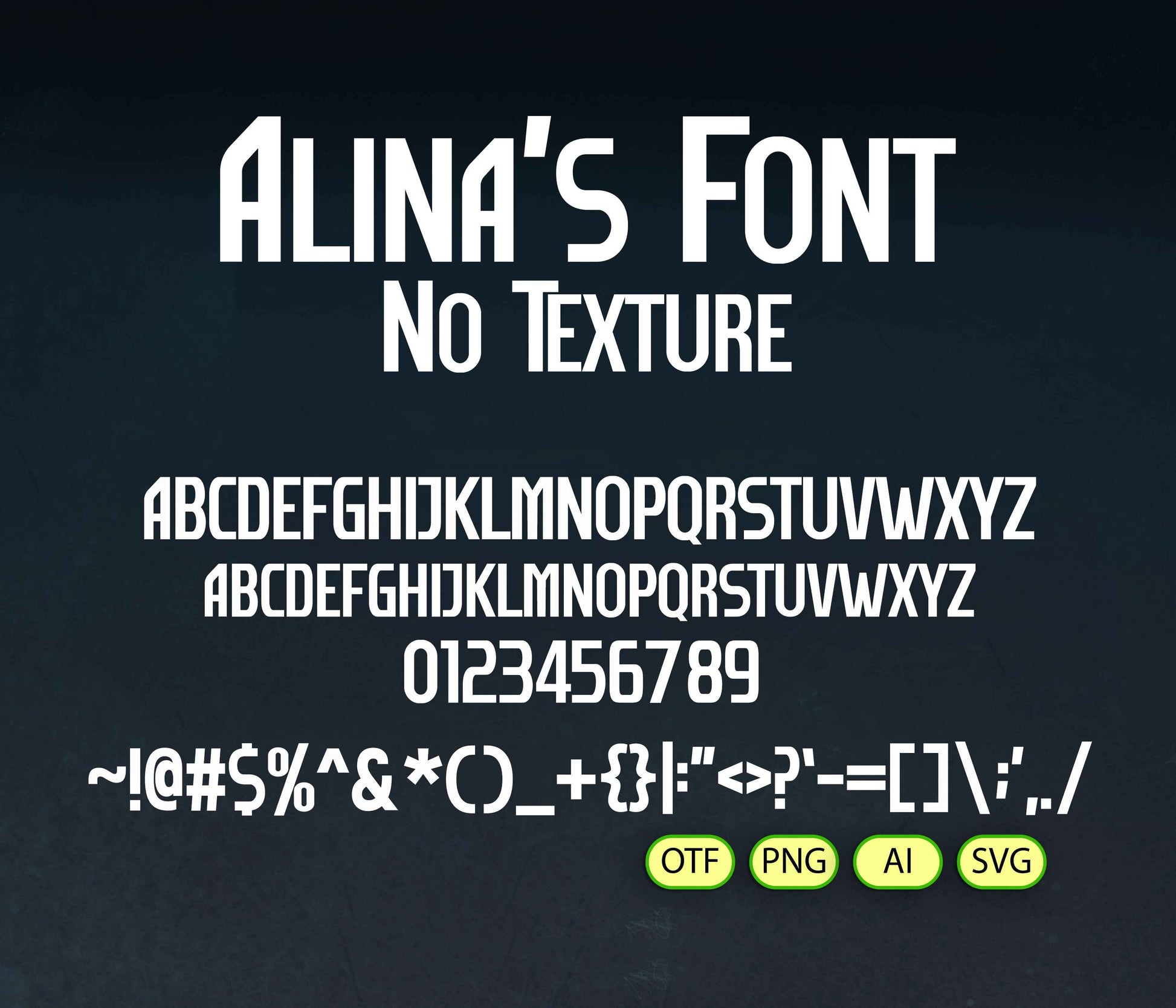
Tiny Heroes Quantum Adventure Font
Step into the microscopic world of subatomic superheroes with our Tiny Heroes Quantum Adventure font! This dynamic typeface captures the essence of miniature champions who navigate the quantum realm, facing outsized challenges with wit, courage, and cutting-edge technology. Each character in this font radiates the energy, innovation, and mind-bending possibilities of quantum exploration.
What is the Tiny Heroes Quantum Adventure font?
Envision a typeface that embodies the thrilling spirit and sci-fi nature of subatomic adventurers. Our font features sleek, slightly futuristic letterforms with a touch of quantum distortion, reminiscent of the heroes' size-shifting abilities. It includes a full set of alphabets, numbers, and special characters, perfect for a wide array of superhero-inspired and science fiction design projects.
What You Can Do With Tiny Heroes Quantum Adventure Font
• Comprehensive Character Set: Offers a wide range of characters for complete design flexibility.